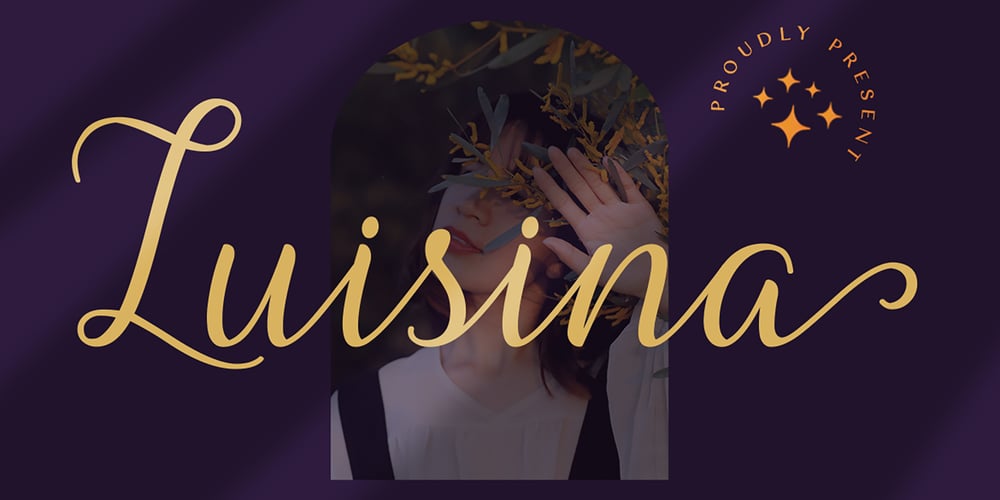
Luisina
Luisina font
Luisina Font Family was designed by Tezar Tantular and published by Keristyper Studio. Luisina contains 1 styles and family package options. Luisina Script is a handwritten font reflecting calligraphy lettering. This font is inspired by hand-written, pop culture and urban culture. It includes numbers, punctuation, alternates, ligatures, and supports other languages. It is perfect for adding a hand-lettered style to your stationery, headlines, branding, and wedding invitation.Luisina Font multilingual support: Afrikaans, Albanian, Catalan, Danish, Dutch, English, Estonian, French, Finnish, German, Icelandic, Indonesian, Italian, Malay, Norwegian, Portuguese, Spanish, Swedish, Zulu, and many more.What’s Included : Standard & Multilingual glyphs Ligature Works on PC & Mac Simple installations Accessible in Adobe Illustrator, Adobe Photoshop, Adobe InDesign, and even work on Microsoft Word. Hope you enjoy our font!